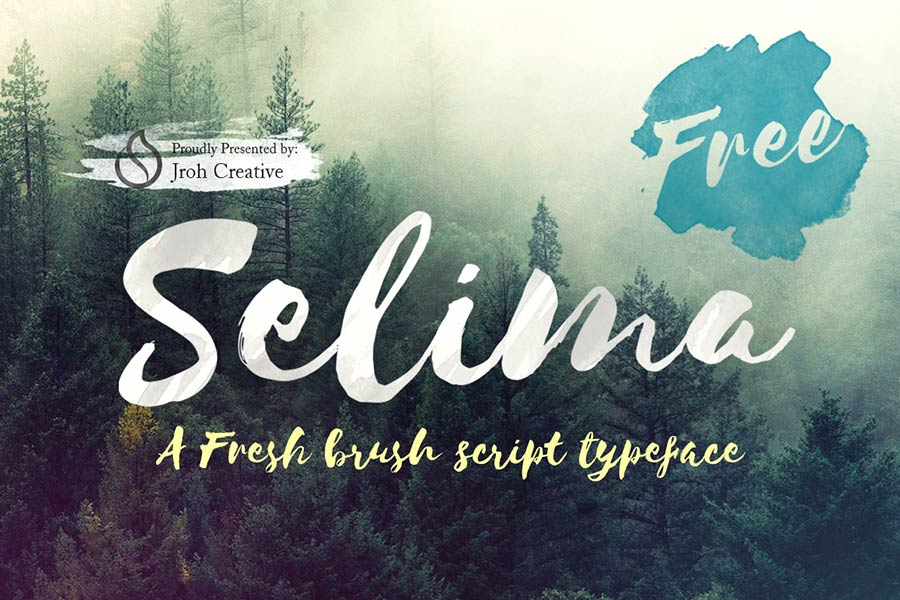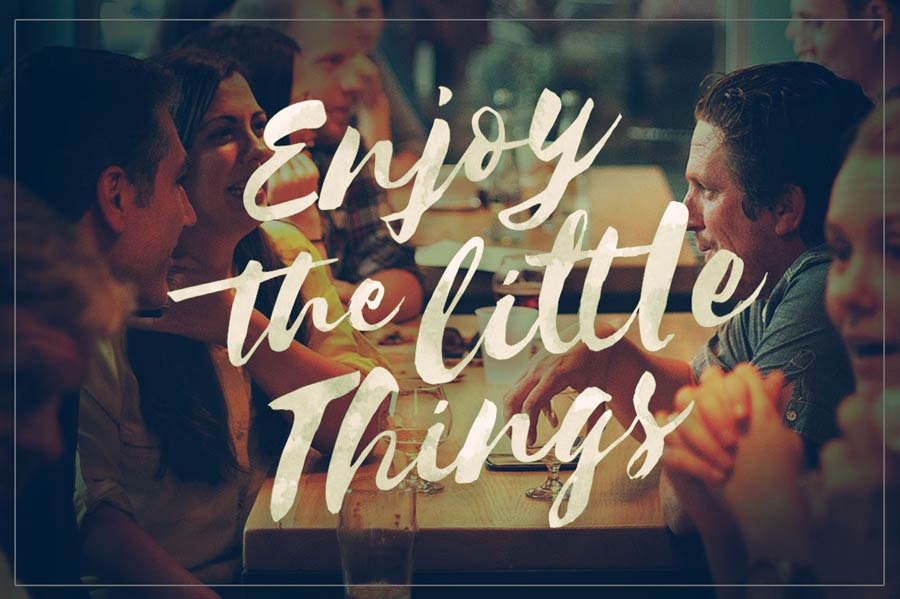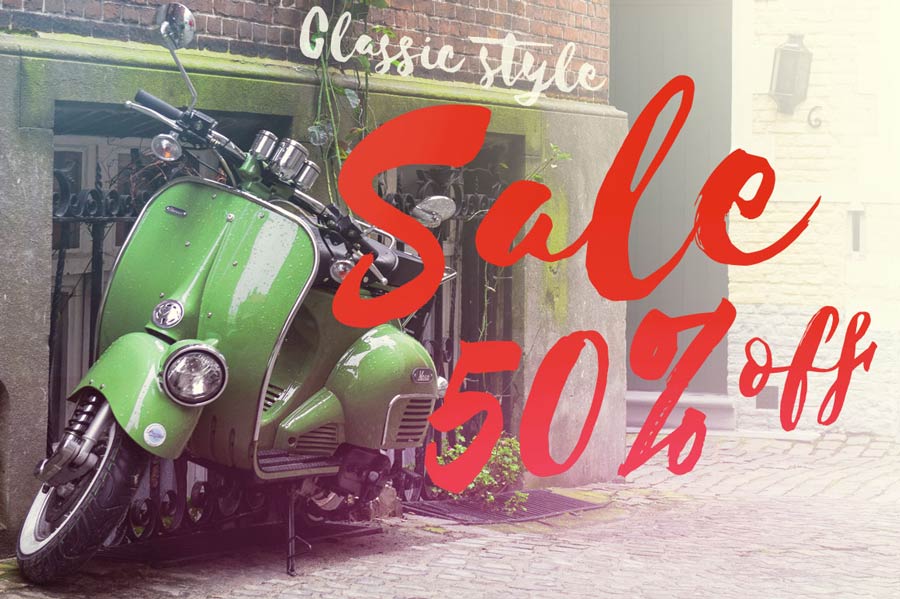
To celebrate the first anniversary in Creative Market, Jroh Creative released Selima, a beautiful hand drawn font with brush for free. And the good news is you can use it for both personal and commercial use. Like other brush fonts, this font can be used from signage for hipster cafes, to vintage and feminine designs.